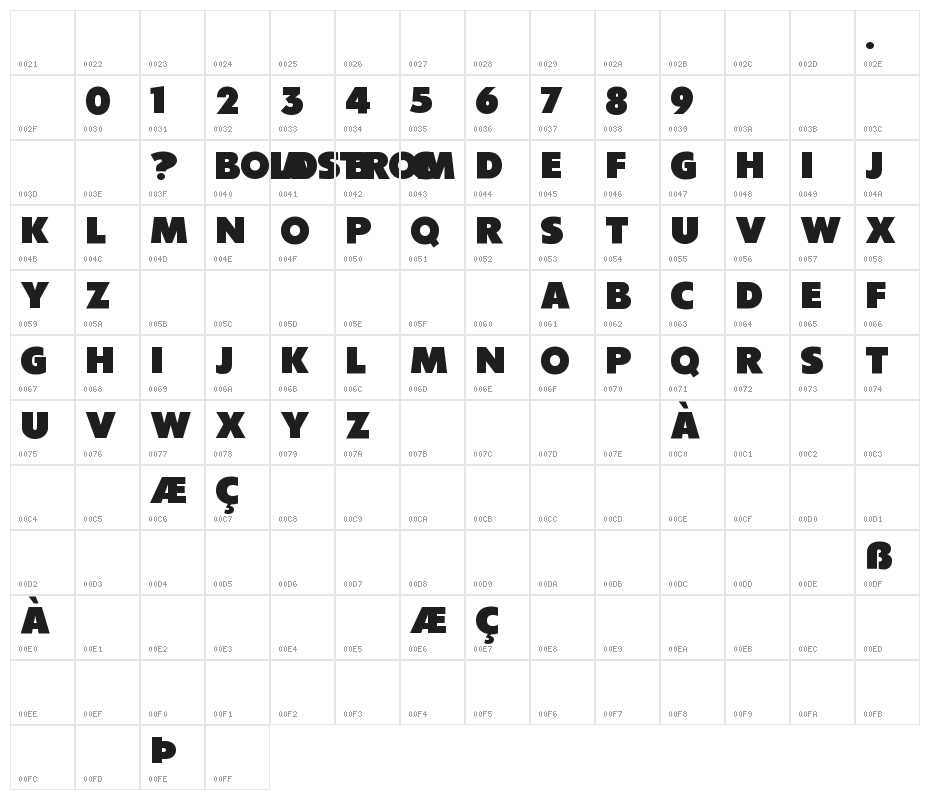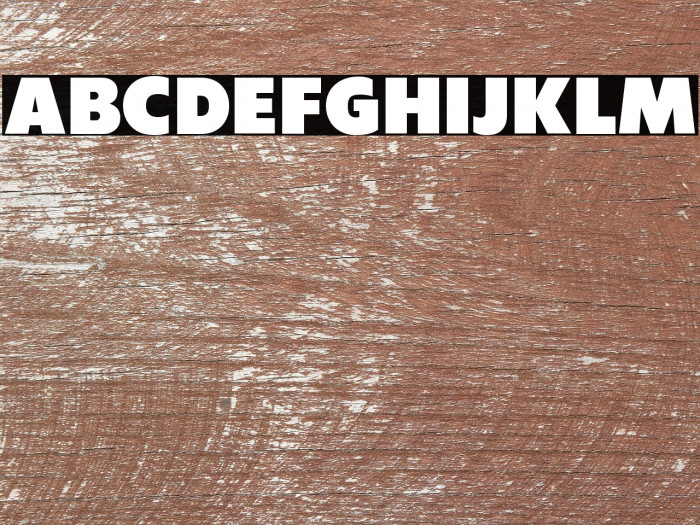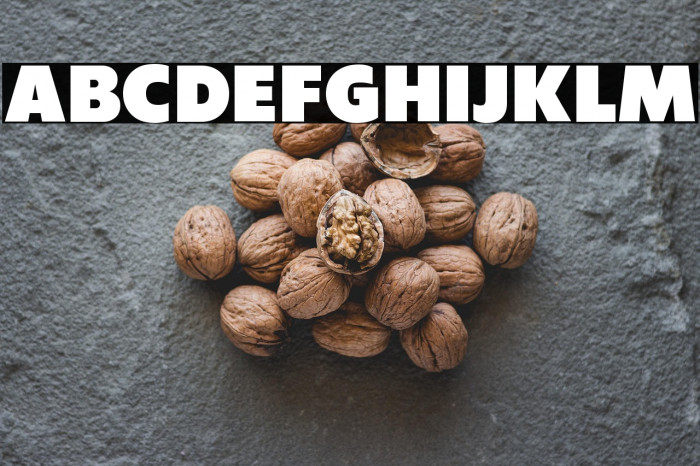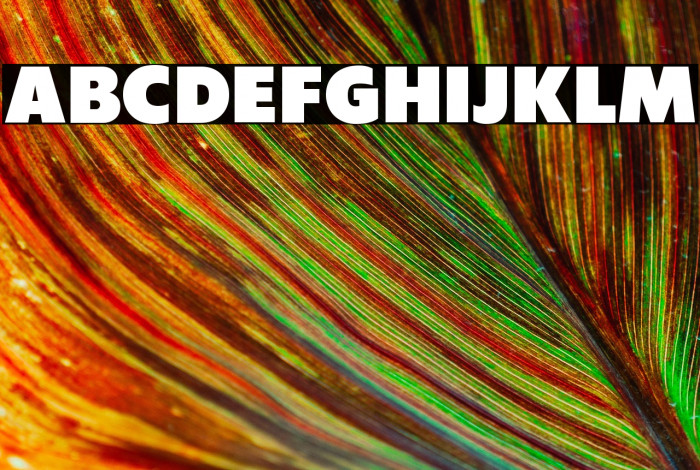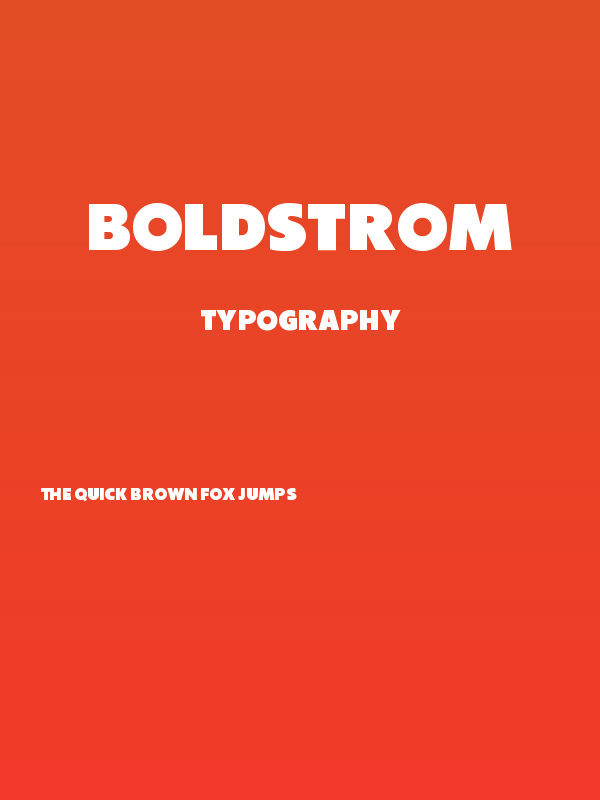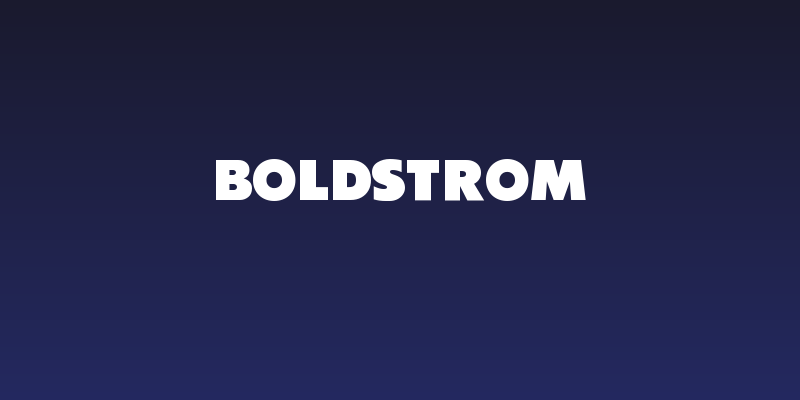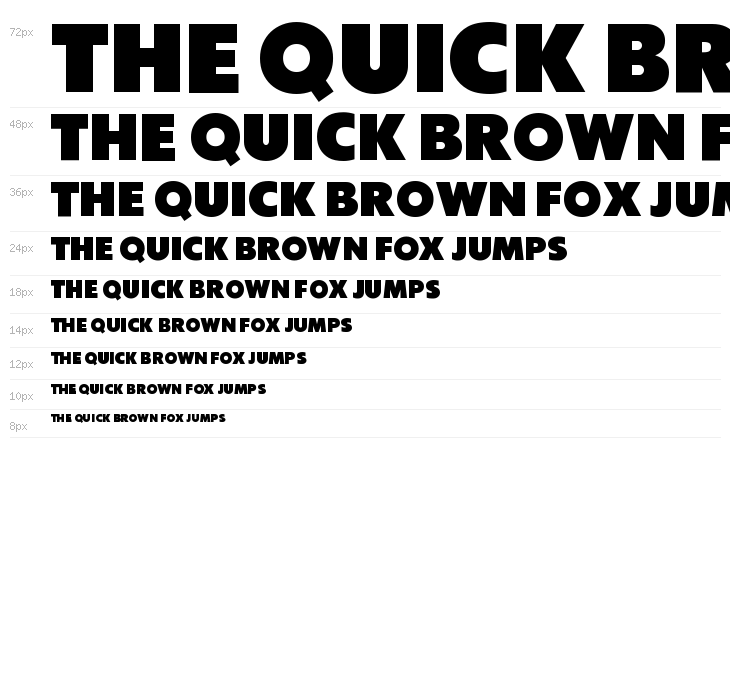
Boldstrom Font
Boldstrom Description
This font is characterized by its bold and impactful presence, featuring thick, uniform strokes that convey strength and confidence. The uppercase letters are robust and commanding, making them ideal for attention-grabbing headlines. The numerals are equally bold, ensuring consistency across different types of content. The overall design is clean and straightforward, with a modern aesthetic that emphasizes clarity and readability. The font's simplicity and weight make it suitable for a variety of applications where a strong visual impact is desired.
| Proposed Projects | Ideal for headlines, posters, branding, and any project requiring a bold statement. |